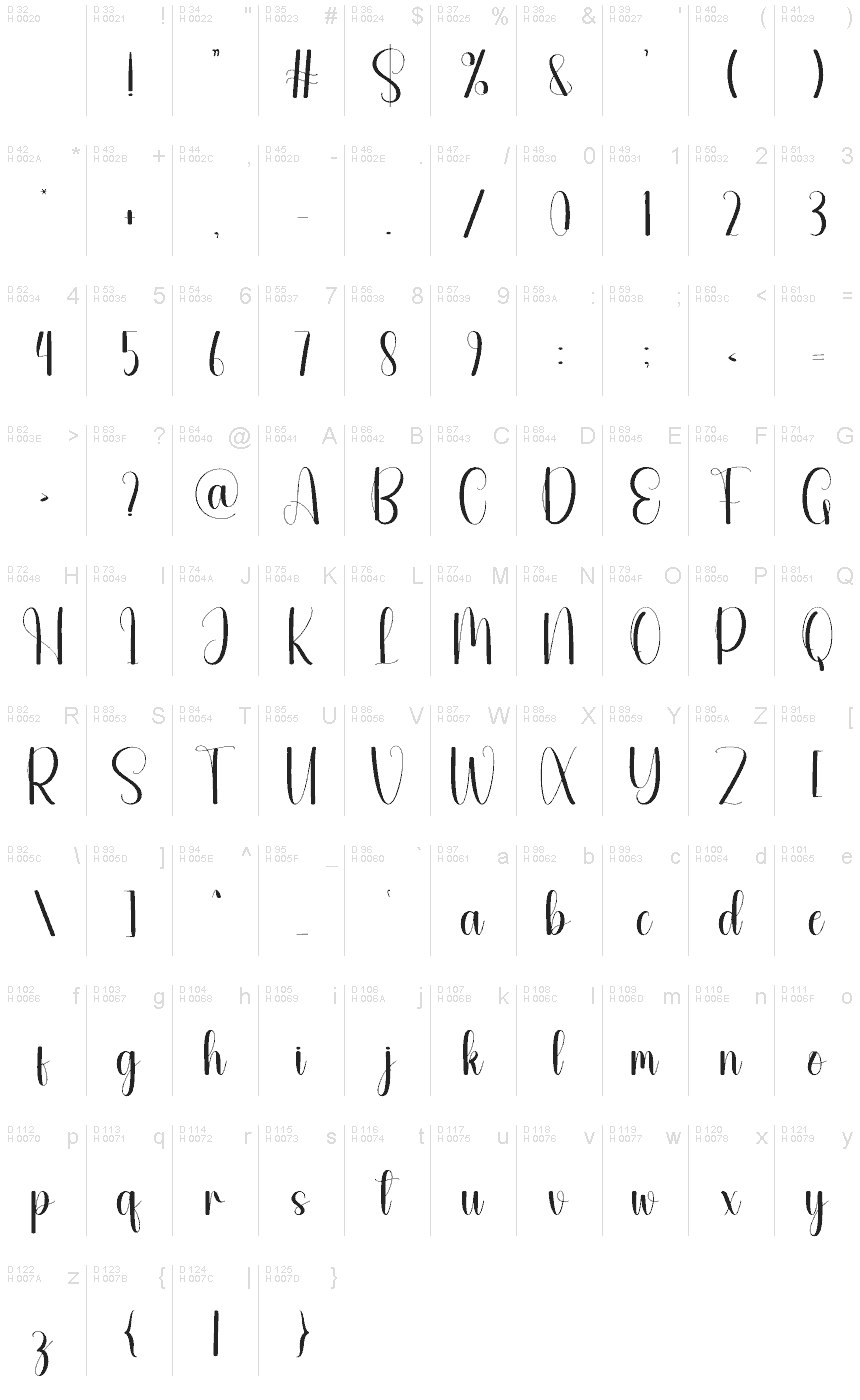
Amused
Amused font by Andi Moz is a calligraphy font that embraces the expressive nature of each character. With its elegant and flowing appearance, this style holds a harmonious edge to further promote readability. It celebrates natural writing and delivers handcrafted designs reminiscent of those carried by invitations and greeting cards.
A free calligraphy font, Amused can be used for crafting wedding cards, gift notes, social media posts, typography artwork, branding or packaging projects. Use it to give life to YouTube videos in intros/outros or apply it on personal blogs.